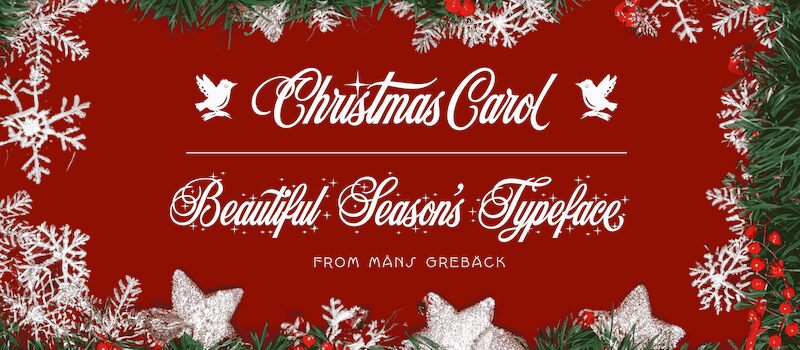
Christmas Carol Star emerges as a delightful gem in the Christmas Carol font family, meticulously crafted by Mans Greback. This semi-light, condensed script not only captures the enchantment of the holiday season but also offers an air of sophistication to any creative endeavor. The flowing strokes and formal intricacies of Christmas Carol Star are reminiscent of a joyful chorus, weaving the familiar comfort and warmth of festive melodies into your design work.
This typeface is particularly suited for projects that demand a touch of yuletide elegance-be it heartwarming holiday cards, exclusive event invitations, or vibrant banners that embody the essence of winter celebrations. Employ its unique features like surrounding stars using parenthesis characters ( ) [ ] { } for added sparkle to your compositions or underscore _ to create sweeping swashes that imbue your text with fluidity and grace.
Within its comprehensive OpenType capabilities lie endless possibilities for customization. The Christmas Carol family showcases four distinct styles, ensuring versatility across various applications. Its extensive linguistic support encompasses a wide array of Latin-based languages, making it as universal as the spirit of Christmas itself. With every character and symbol you might need at your disposal-including punctuation and numbers-Christmas Carol Star stands ready to transform your seasonal projects into works of art that resonate with joy and nostalgia.
Christmas Carol is a classic typeface that embraces the holiday spirit.
Infused with a touch of nostalgia, Christmas Carol wraps your words in the comfort of yuletide cheer.
Using the Star version, use parenthesis characters ( ) [ ] { } to make surrounding stars.
Example: (reindeer) [sleigh]
Use underscore _ to make a swash, or multiple underscores to make them longer.
Example: Santa Claus______